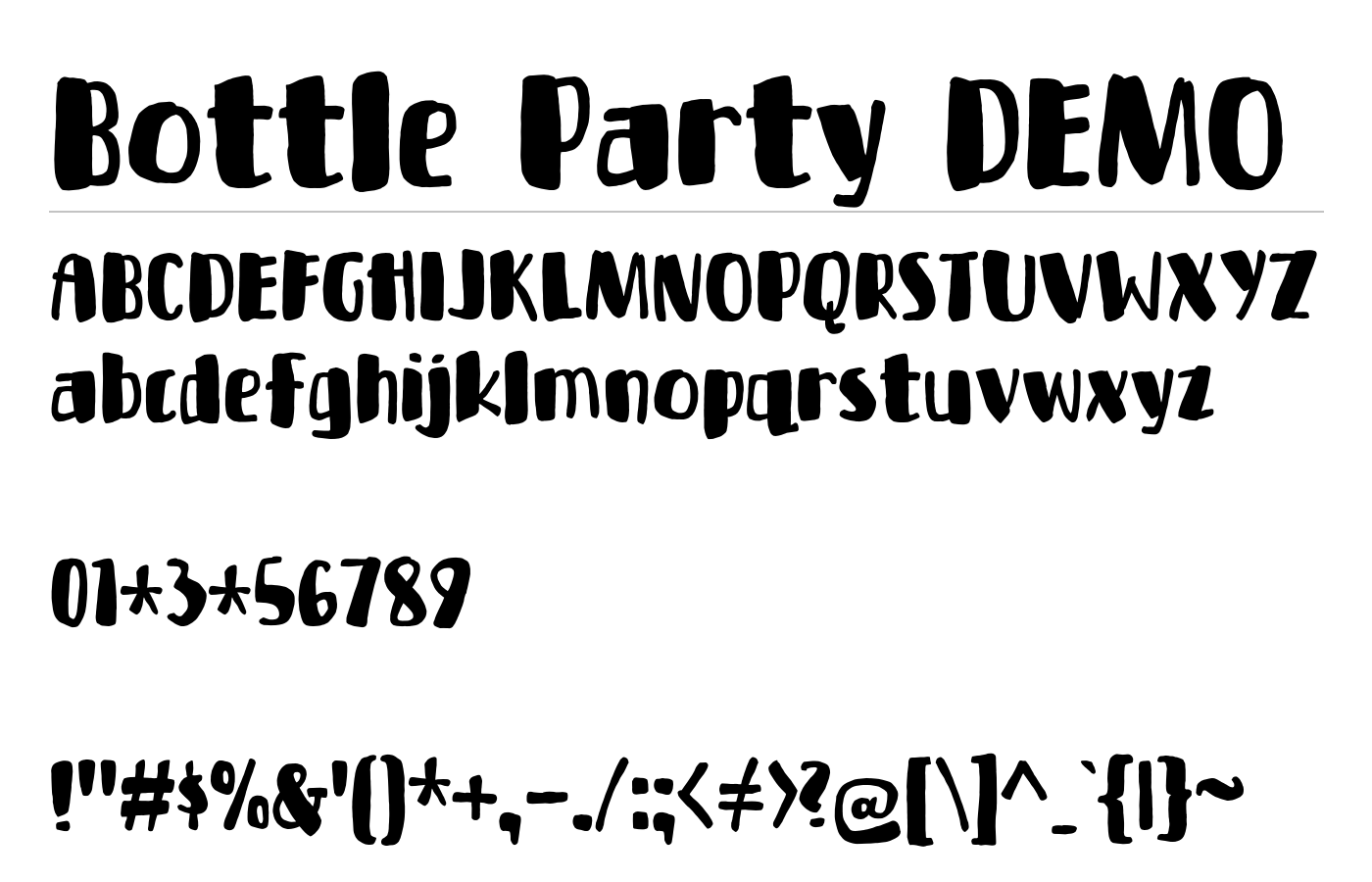
Bottle Party DEMO is a playful and bold sans serif font with a hand-drawn brush style that gives it a lively and informal look. Its irregular strokes and slightly condensed, upright letterforms create an energetic vibe ideal for fun, creative projects. This font works best in headlines, posters, and branding that want to communicate a quirky, youthful, or casual personality.
Bottle Party DEMO Font
About Bottle Party DEMO Font
| Font family | Bottle Party DEMO Font |
| Designer | Jakob Fischer / pizzadude.dk |